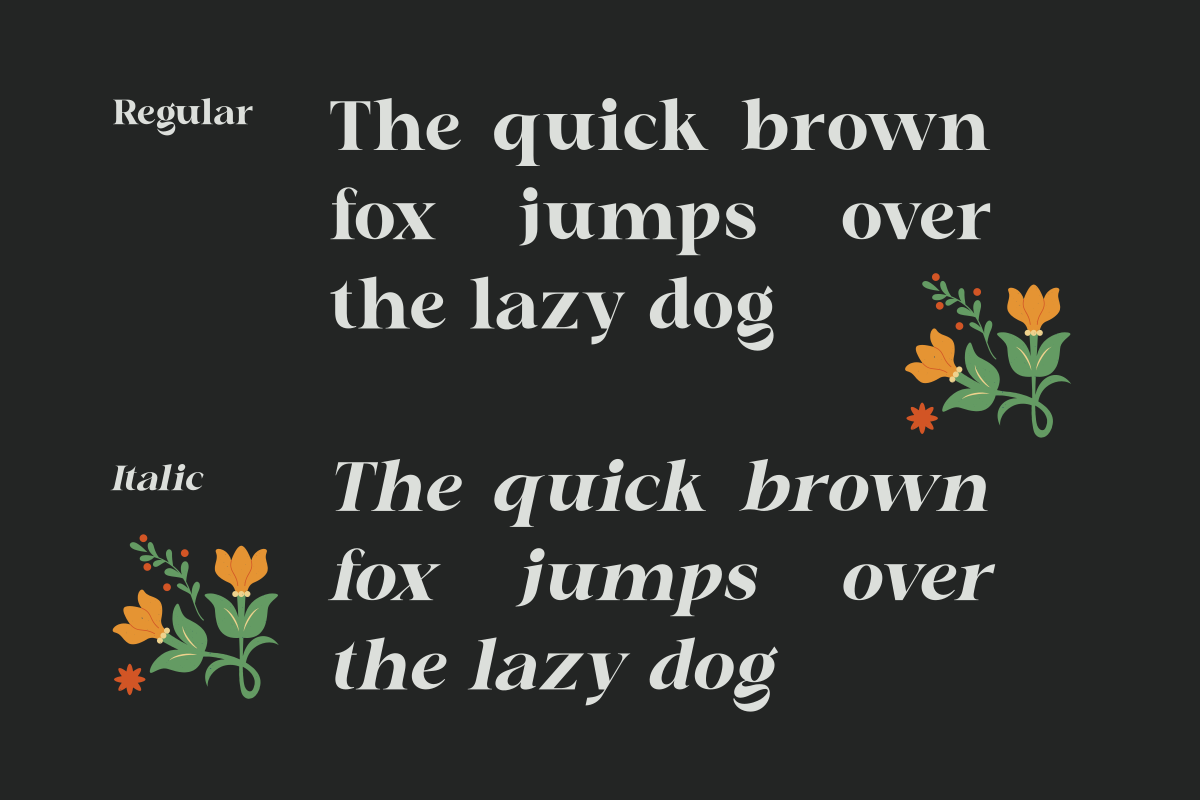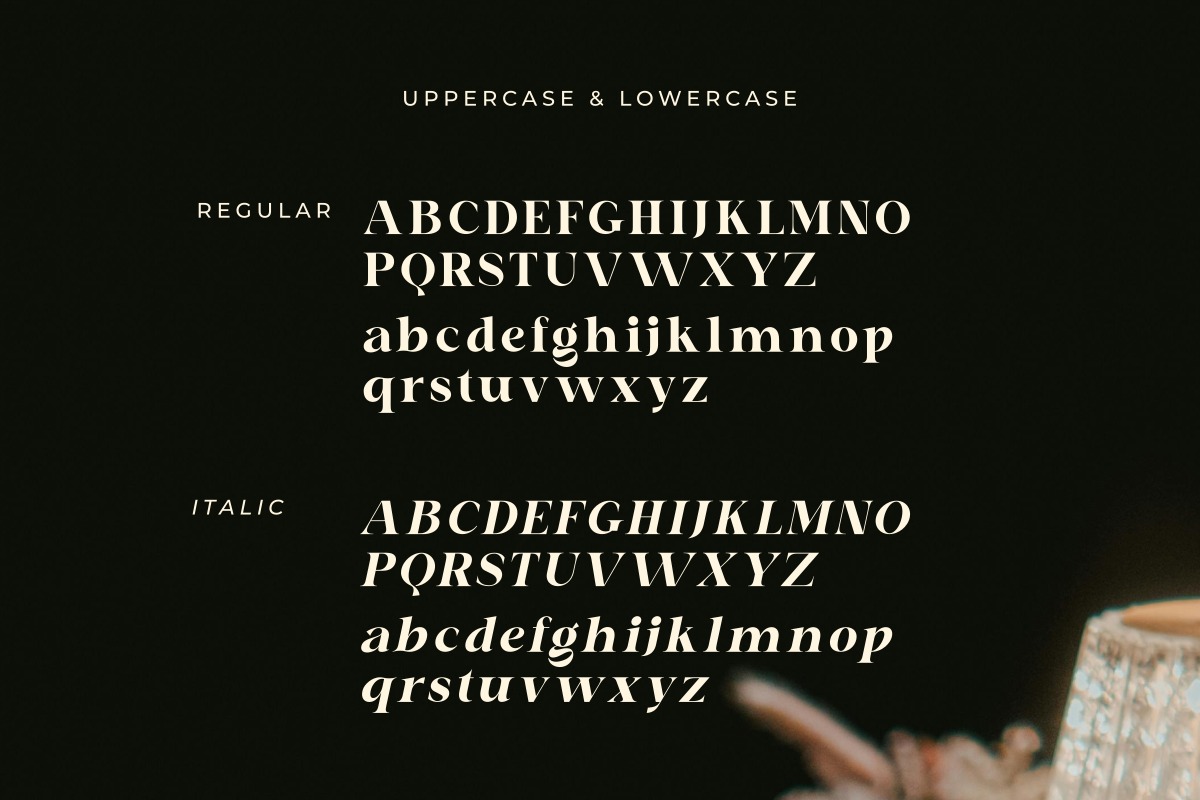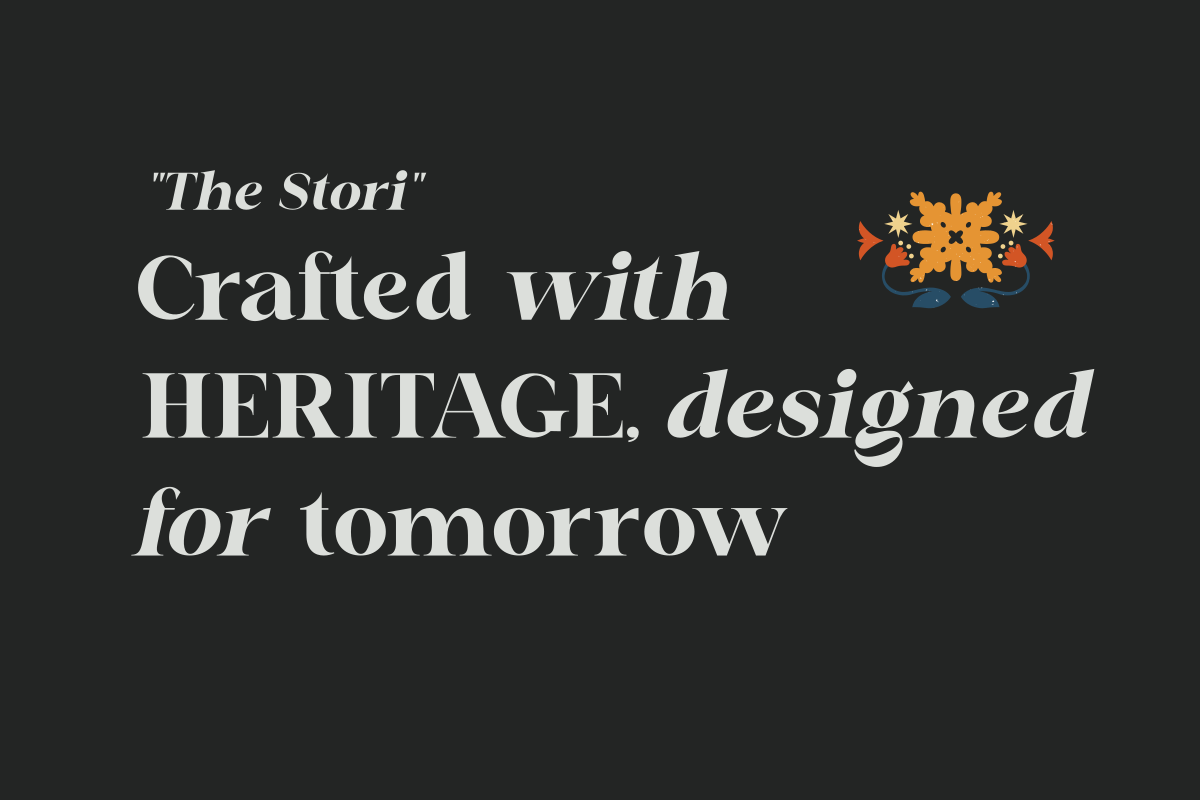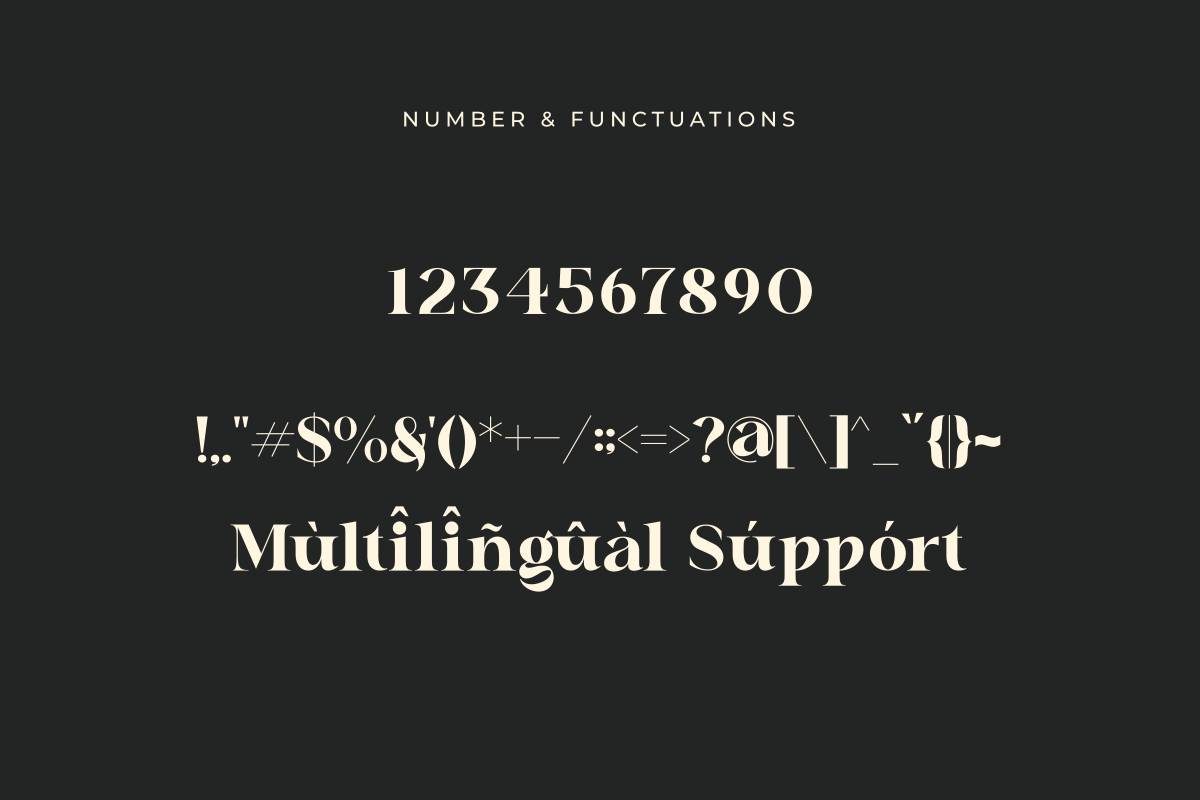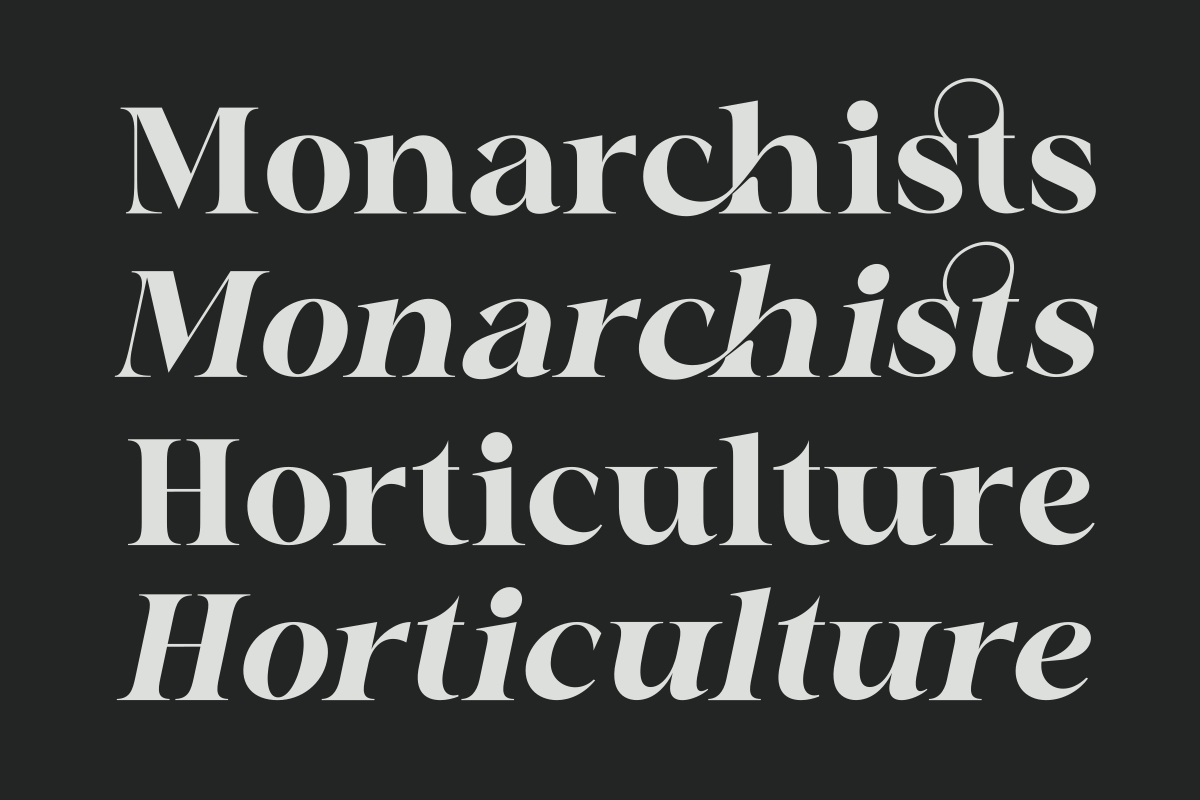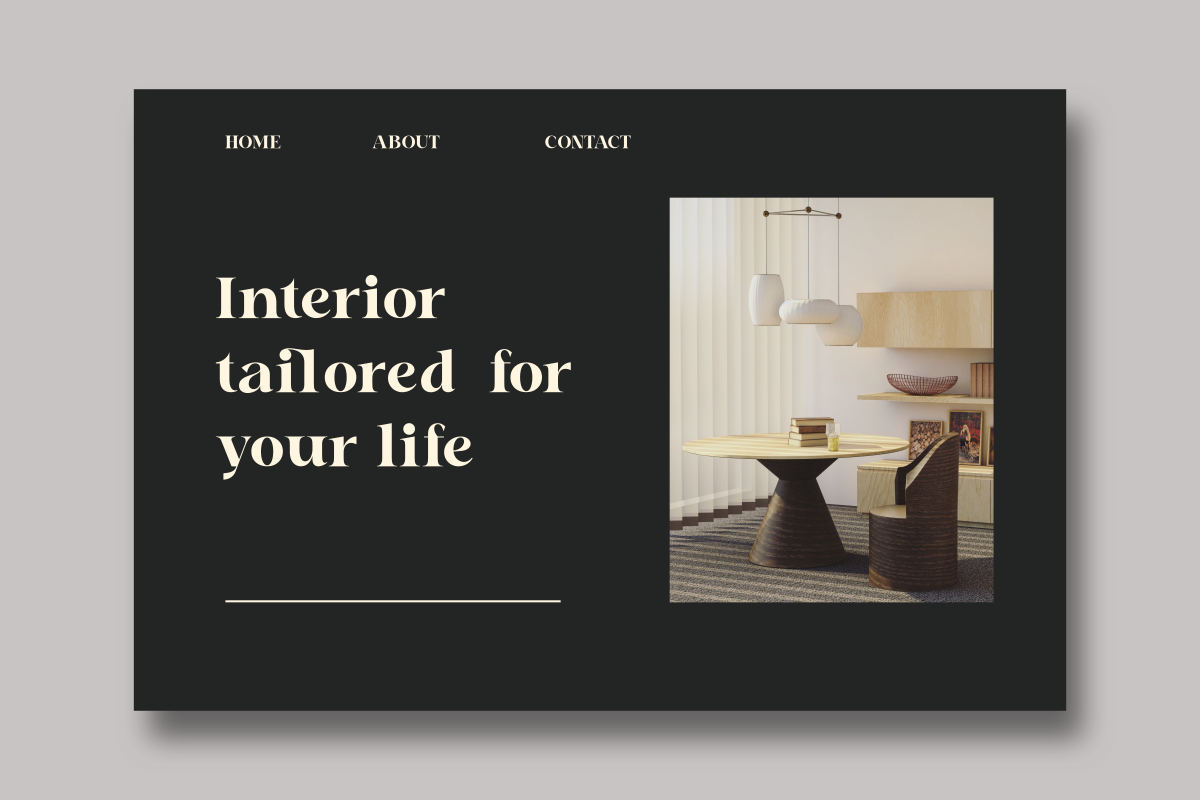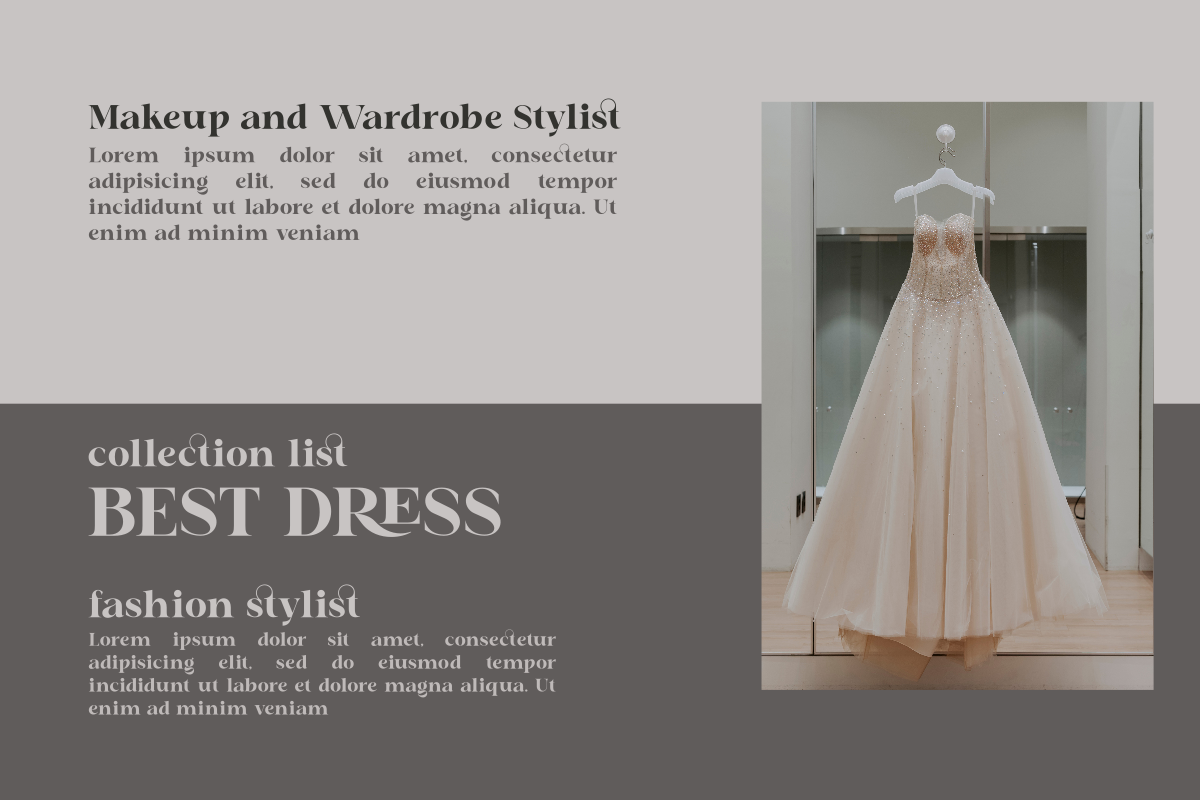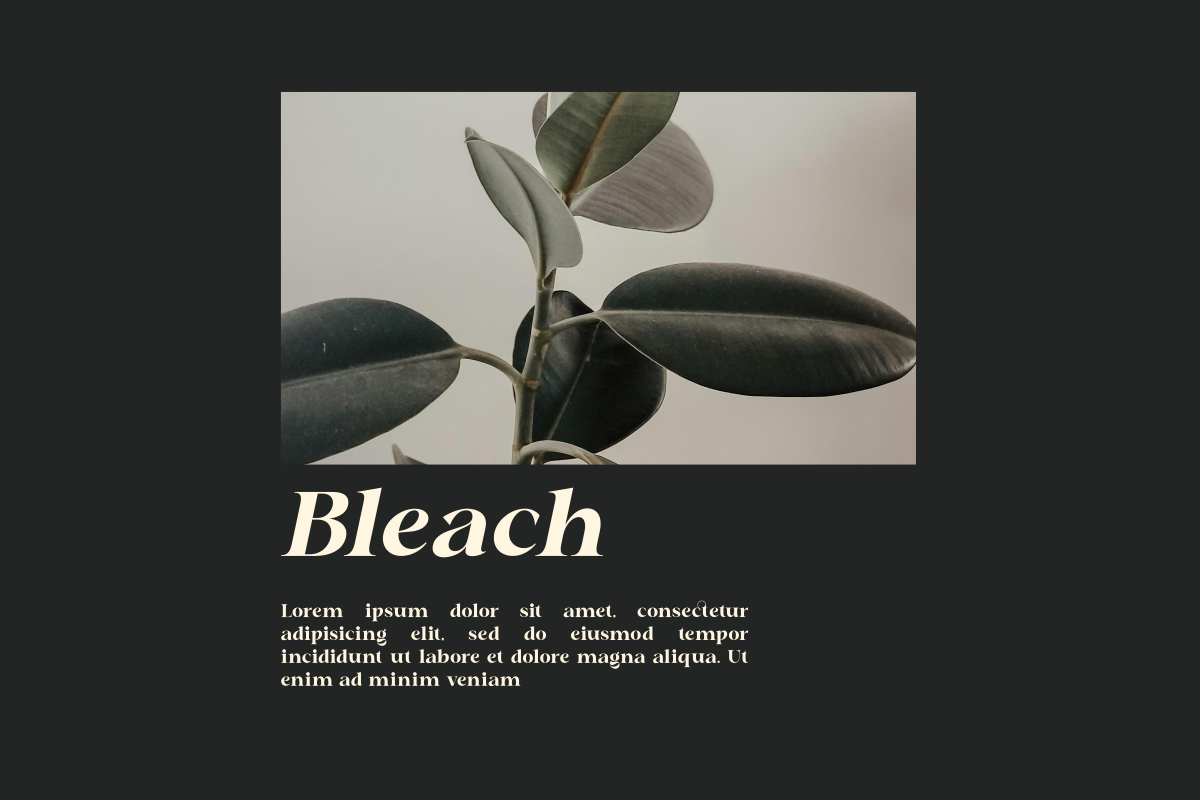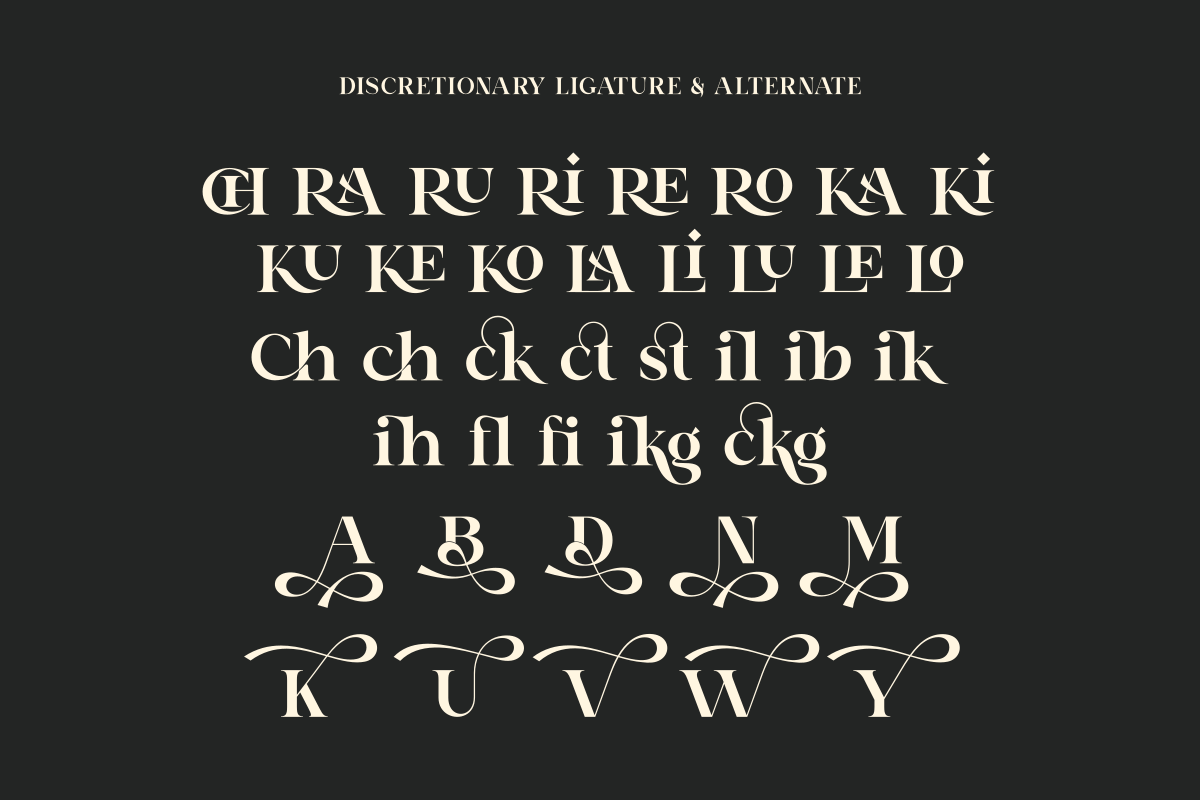
Chafira
Chafira is a refined serif typeface that blends timeless elegance with modern sensitivity. With two essential styles—Regular and Italic—Chafira offers clarity and grace in every line of text.
Designed for editorial design, branding, and sophisticated layouts, Chafira’s Regular style brings structure and readability, while its Italic introduces a subtle rhythm and fluidity, ideal for emphasis or quotes.
The high contrast strokes, delicate curves, and carefully balanced proportions make Chafira suitable for both digital and print applications. Whether you're designing a magazine, a luxury brand identity, or a stylish website, Chafira adds a distinct voice of poise and professionalism.